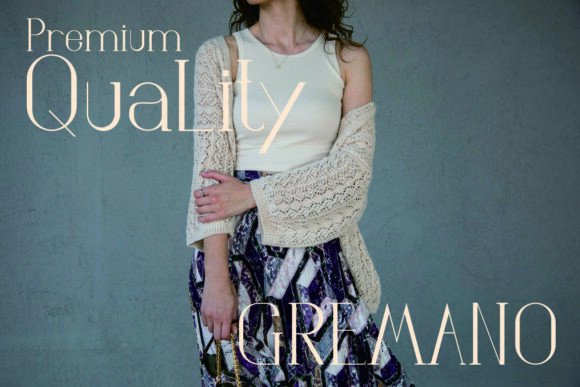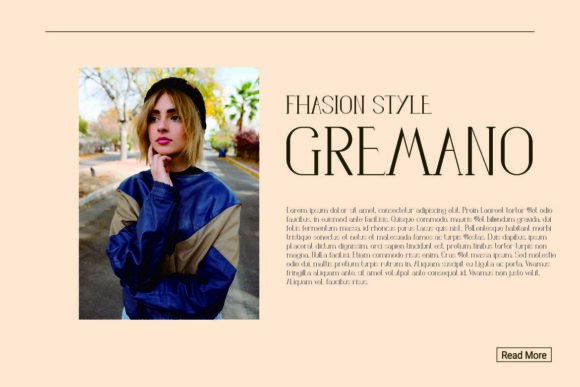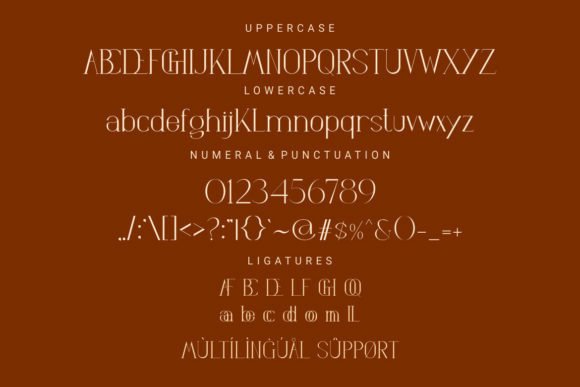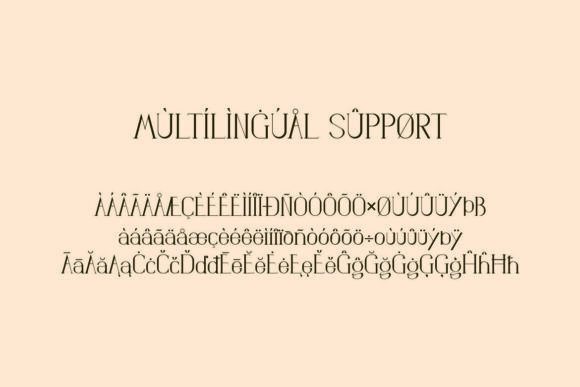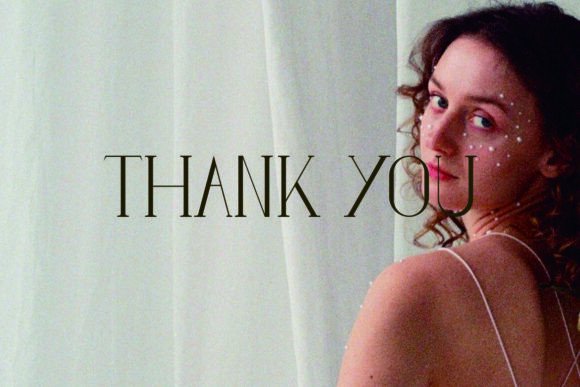
Introducing Germano Font: Elevate Your Designs with Elegance and Boldness
Are you on the hunt for a font that exudes elegance, sophistication, and versatility? Look no further than Germano Font, a stunning serif font that is sure to capture your heart. With its incredibly versatile style, Germano Font is perfect for creating a wide range of designs, from gorgeous wedding invitations and beautiful stationery art to eye-catching social media posts and more.
What Makes Germano Font So Special?
Germano Font is an elegant and bold serif font that boasts a unique and captivating style. Its serif design adds a touch of sophistication and refinement, making it perfect for designs that require a level of luxury and poise. Whether you’re a designer, crafty DIY enthusiast, or social media influencer, Germano Font is sure to become your go-to font for all your design needs.
Endless Design Possibilities with Germano Font
One of the best things about Germano Font is its incredible versatility. This font can be used for a wide range of design projects, including:
- Wedding Invitations: Create stunning wedding invitations that set the tone for a beautiful and elegant celebration.
- Stationery Art: Design gorgeous stationery art, including greeting cards, thank you cards, and more.
- Social Media Posts: Create eye-catching social media posts that grab attention and drive engagement.
- Branding and Packaging: Use Germano Font to create a cohesive brand identity that exudes elegance and sophistication.
- Signage and Displays: Make a statement with bold and eye-catching signage and displays.
Why Choose Germano Font?
So, why should you choose Germano Font for your design projects? Here are just a few reasons:
- Unique and Captivating Style: Germano Font boasts a unique and captivating style that is sure to set your designs apart.
- Elegant and Sophisticated: This font exudes elegance and sophistication, making it perfect for designs that require a level of luxury and poise.
- Versatile: Germano Font can be used for a wide range of design projects, from wedding invitations to social media posts.
- Easy to Read: Despite its bold and elegant design, Germano Font is easy to read, making it perfect for body text and headlines.
Tips for Using Germano Font
To get the most out of Germano Font, here are a few tips to keep in mind:
- Pair with Other Fonts: Experiment with pairing Germano Font with other fonts to create a unique and eye-catching design.
- Use for Headlines and Titles: Use Germano Font for headlines and titles to add a touch of elegance and sophistication.
- Experiment with Colors: Don’t be afraid to experiment with different colors to find the perfect combination for your design.
| Font Name | Germano Font |
| Author | Kenrichi |
In conclusion, Germano Font is an elegant and bold serif font that is sure to capture your heart. With its incredibly versatile style, Germano Font is perfect for creating a wide range of designs, from gorgeous wedding invitations and beautiful stationery art to eye-catching social media posts and more. Whether you’re a designer, crafty DIY enthusiast, or social media influencer, Germano Font is a must-have font for any design project.
Get Ready to Fall in Love with Germano Font
So, what are you waiting for? Fall in love with Germano Font and start creating stunning designs that exude elegance and sophistication. With its unique and captivating style, Germano Font is sure to become your go-to font for all your design needs.